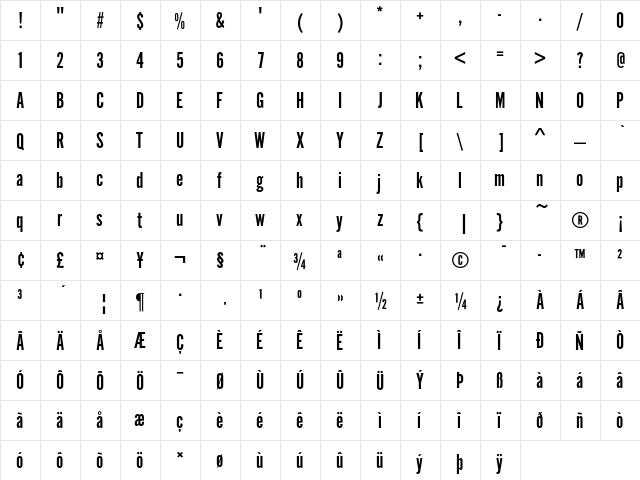
Alternate Gothic No1 D Regular Font Preview
Alternate Gothic No1 D Regular
Design Context for Alternate Gothic No1 D Typeface
Alternate Gothic No1 D takes a clean, functional approach — its unadorned letterforms prioritise legibility and work reliably across screen and print environments.
Font Pairing: Works well alongside a characterful serif or display font that can carry the expressive load while Alternate Gothic No1 D handles the functional copy.
Pro Tip: Use Alternate Gothic No1 D for UI labels, navigation, and short-form body copy where clean legibility is the priority.